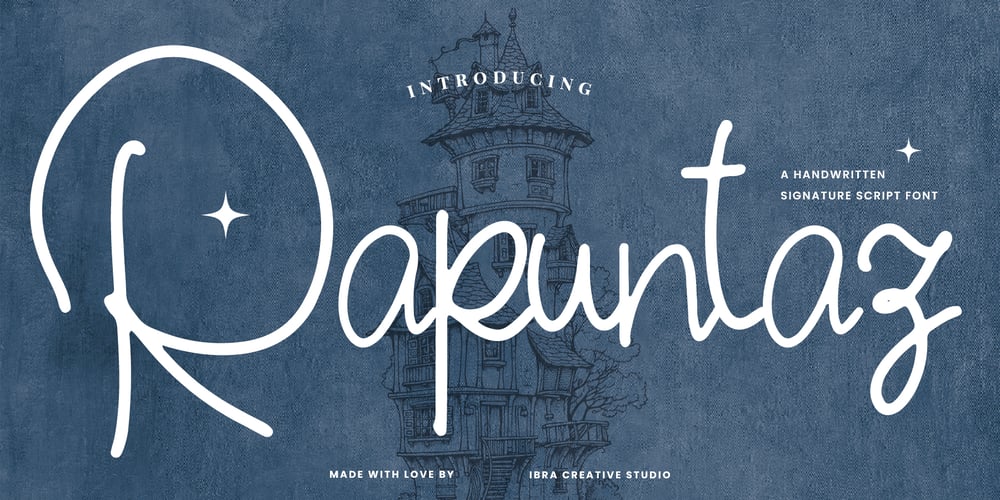
Rapuntaz Font Family was designed by Roisatul Azizah and published by IbraCreative. Rapuntaz contains 1 styles and family package options. Rapuntaz – A Handwritten Signature Script FontRapuntaz is an exquisite handwritten signature script font that embodies elegance and sophistication. With its graceful strokes and fluid curves, each letter exudes a sense of personalized artistry, mimicking the nuanced movements of a pen gliding effortlessly across paper. The font captures the essence of a carefully crafted signature, adding a touch of refinement to any design or document. Rapuntaz seamlessly blends cursive elements with a contemporary flair, resulting in a timeless and versatile typeface that conveys both individuality and class. Whether used for formal documents, invitations, or branding, Rapuntaz lends an air of authenticity and style to every project it graces.Rapuntaz is perfect for branding projects, logo, wedding designs, social media posts, advertisements, product packaging, product designs, label, photography, watermark, invitation, stationery, game, fashion and any projects.Fonts include multilingual support for; Afrikaans, Albanian, Czech, Danish, Dutch, English, Estonian, Finnish, French, German, Hungarian, Italian, Latvian, Lithuanian, Norwegian, Polish, Portuguese, Slovak, Slovenian, Spanish, Swedish.